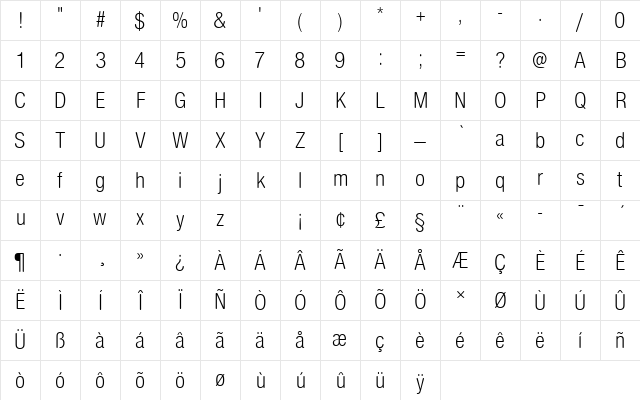
NimbusSanDLigConRo1 Regular
Design Context for NimbusSanDLigConRo1
NimbusSanDLigConRo1 is a composed and adaptable typeface that performs quietly and consistently across a wide range of design contexts.